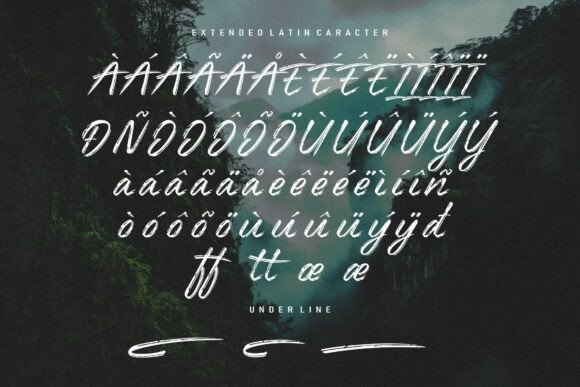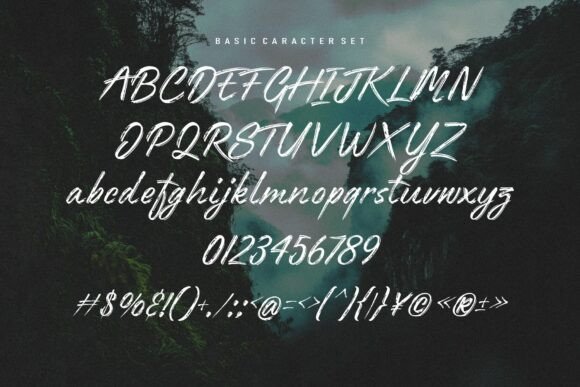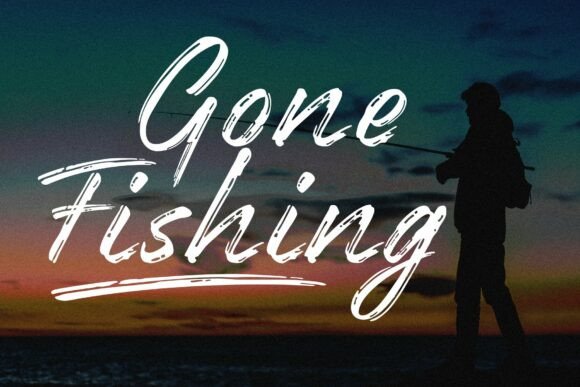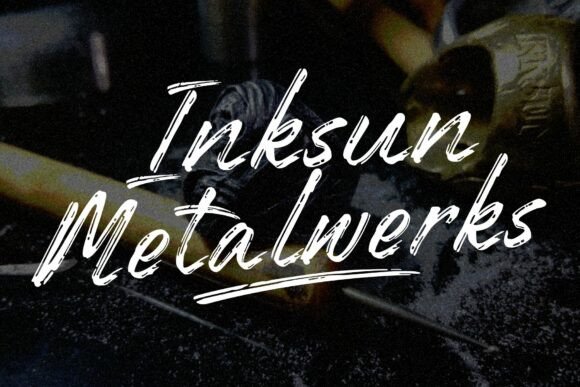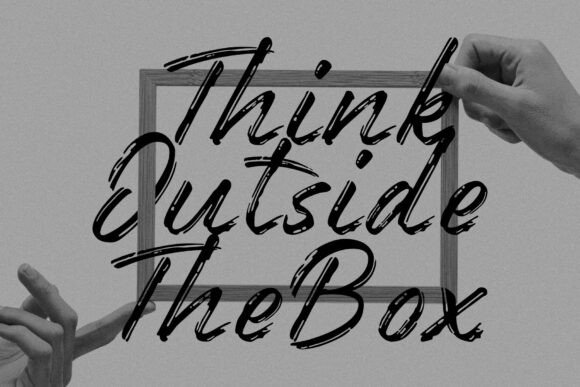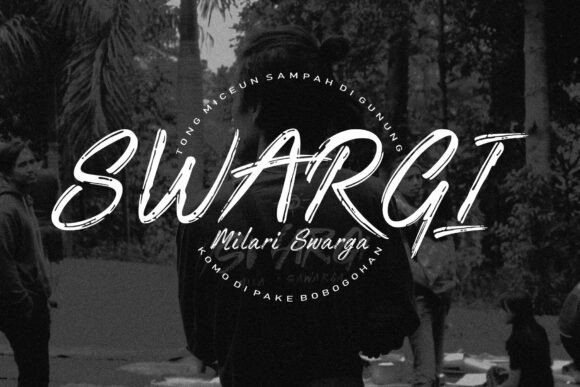
Unleashing the Power of Rattin Font
Have you ever stared at a blank canvas, struggling to find the perfect words to bring your creative project to life? You know, that moment when the blank page stares back at you, daring you to take a chance and make a statement? For designers, it’s a familiar feeling – the need to convey a message that’s raw, authentic, and unapologetic. That’s where the Rattin Font comes in, a powerful hand-lettered brush script that’s about to revolutionize your creative workflow.
With its aggressive, textured strokes and dynamic flow, the Rattin Font is the ultimate design resource for anyone looking to add a high-quality, gritty feel to their work. From rock and roll posters to extreme sports branding, this font is perfectly suited for projects that need a rough, masculine, and high-impact aesthetic. And the best part? It’s available for free download, complete with transparent backgrounds and a range of customization options to make your message stand out.
Key Features of Rattin Font
- Includes a full character set, including uppercase and lowercase letters, numbers, and punctuation
- Perfect for use in logos, branding, and other graphic design applications
Honest Review: Rattin Font
As a designer, I’m always on the lookout for high-quality design resources to elevate my creative projects. The Rattin Font is one such find that caught my attention. In this review, I’ll share my honest thoughts on this font, its strengths, and areas where it falls short.
- ✨ High-quality typography: The Rattin Font boasts crisp, clear letters with a unique texture that adds depth to any design.
- ⚠️ Limited character set: The Rattin Font has a relatively small character set, which might be a limitation for designers requiring a more extensive range of characters.
Overall, the Rattin Font is a solid addition to any designer’s toolkit. While it has its limitations, its high-quality typography and free download make it a valuable resource for creative projects. If you’re looking for a unique font to add some texture to your designs, the Rattin Font is definitely worth considering.
Rattin Font
Tips for Getting the Most Out of Rattin Font
To get the most out of the Rattin Font, use it in conjunction with other design elements to create a unique and eye-catching design. Experiment with different font sizes and colors to add depth and interest to your design.
The Rattin Font is commonly used in creative projects such as logos, business cards, and brochures. It is also used in digital designs such as social media graphics and website headers.